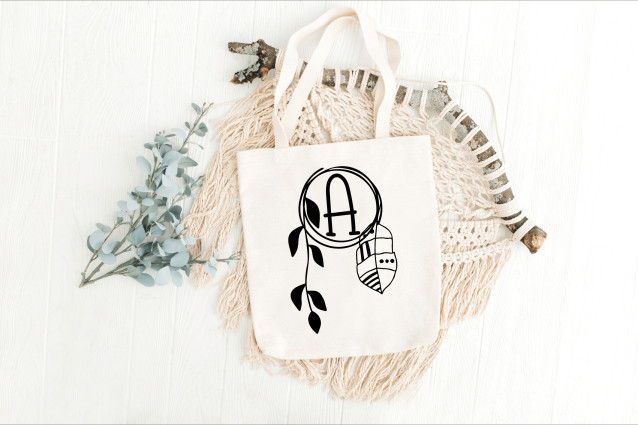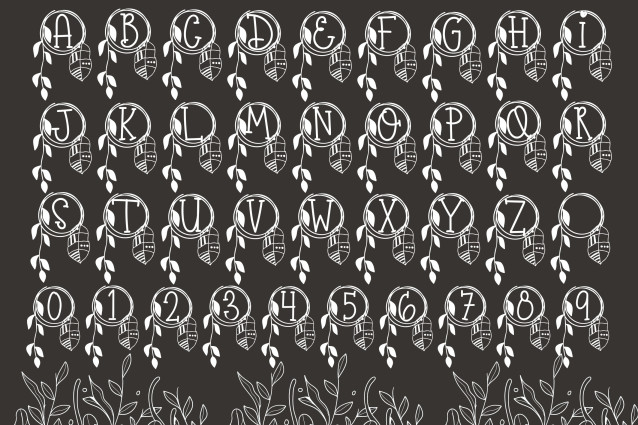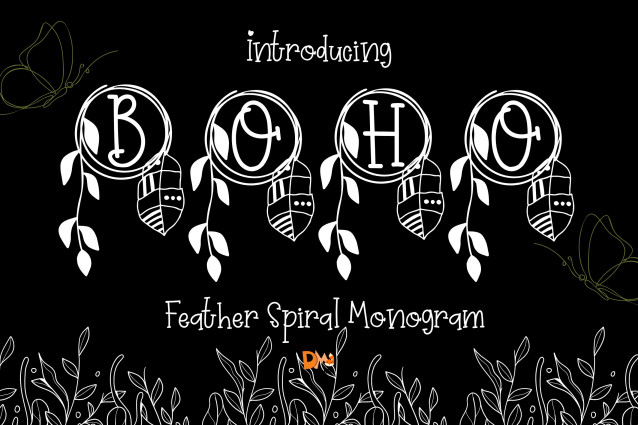
Feather Spiral Monogram Font
Feather Spiral Monogram Font is a refined serif monogram font featuring beautifully hand-drawn feather spirals that wrap around each uppercase letter. Designed to capture motion, lightness, and bohemian elegance, this font is perfect for wedding monograms, Cricut crafts, boutique branding, and personalized design projects that seek a touch of nature and grace.